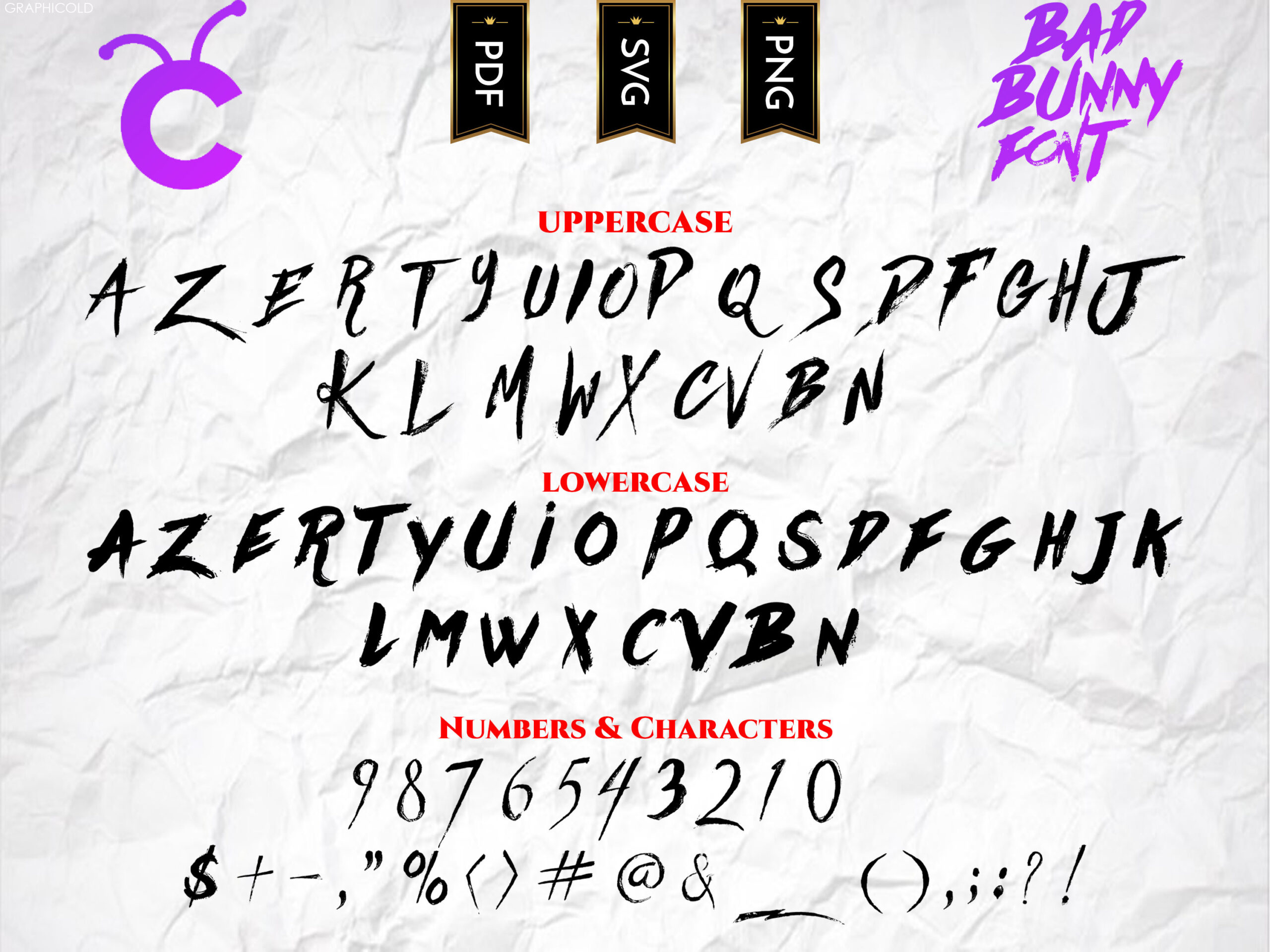
bad bunny font: Adding a Touch of Flair to Typography
Typography plays a significant role in enhancing the visual appeal of any design. It can convey emotions, set the mood, and make a statement. One such font that has gained popularity in recent times is the Bad Bunny font.
Bad Bunny, the Puerto Rican singer, rapper, and songwriter, has not only made waves in the music industry but has also left an indelible mark on the world of design with his unique font style. The Bad Bunny font is bold, edgy, and full of character, making it an excellent choice for various design projects.
The Bad Bunny font is characterized by its sharp edges, exaggerated curves, and unconventional letterforms. It captures the essence of Bad Bunny’s rebellious and non-conformist persona, making it an ideal choice for designs that aim to stand out from the crowd. The font exudes a sense of energy and attitude, making it perfect for album covers, posters, merchandise, and social media graphics.
One of the reasons behind the popularity of the Bad Bunny font is its versatility. It can be used in a variety of design styles, from grunge and urban to modern and futuristic. Designers appreciate its ability to evoke emotions and create a visual impact. The font’s unique style adds a touch of flair and personality to any design project, making it instantly recognizable.
In addition to its aesthetic appeal, the Bad Bunny font is also practical and easy to read. The carefully crafted letterforms ensure legibility, even at smaller sizes, making it suitable for use in body text as well. This versatility allows designers to use the font consistently across different design elements, creating a cohesive and visually appealing composition.
The Bad Bunny font has become a popular choice not only among designers but also among fans of the artist. It has become an iconic symbol associated with Bad Bunny’s brand and music. Fans often use the font in their own designs, creating fan art, tattoos, and social media graphics that pay homage to their favorite artist.
In conclusion, the Bad Bunny font has made a significant impact on the world of typography. Its unique style, versatility, and ability to evoke emotions have made it a popular choice among designers and fans alike. Whether used in album covers, posters, merchandise, or social media graphics, the Bad Bunny font adds a touch of flair and personality to any design project. So, if you’re looking to make a statement and stand out from the crowd, consider incorporating the Bad Bunny font into your next design endeavor.